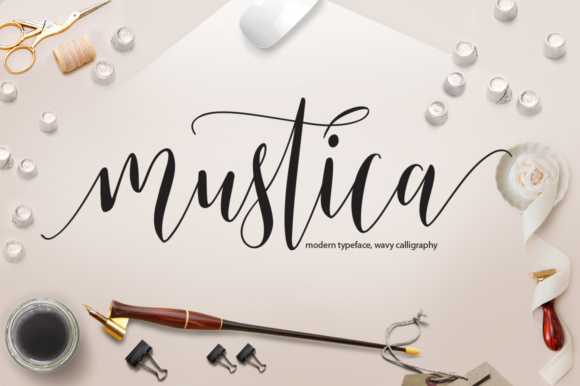
Unlock the Enchantment of Mustica Script: A Calligraphy Typeface of Timeless Beauty
Step into a world of elegance and sophistication with Mustica Script, a calligraphy typeface that captures the essence of modern and classic design. Each letter, meticulously crafted by the renowned joelmaker, exudes a timeless charm that will elevate your creative projects to new heights.
Immerse yourself in the graceful curves and delicate swashes of Mustica Script, a font family that embodies the beauty of traditional calligraphy. Its script style lends an air of sophistication and charm to any design, whether it's a wedding invitation, a heartfelt letter, or an eye-catching logo.
With Mustica Script, your words will dance across the page, evoking a sense of wonder and inspiration. Unleash your creativity and let the fluidity of this font enchant your audience. From elegant invitations to captivating posters, Mustica Script will transform your designs into works of art.